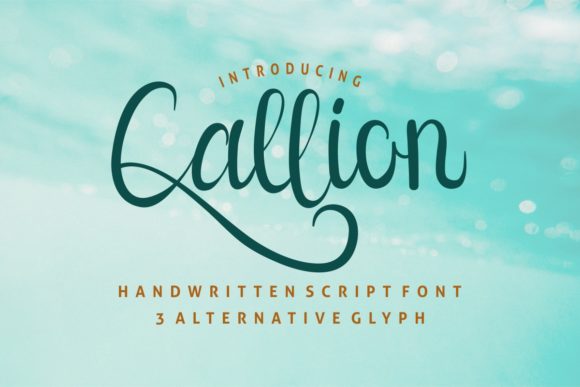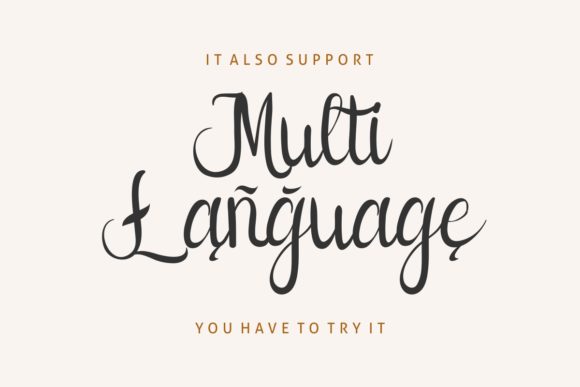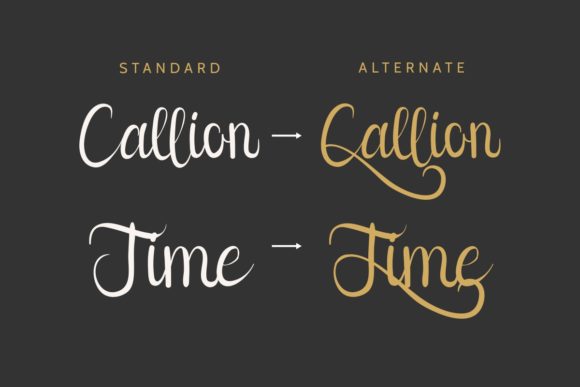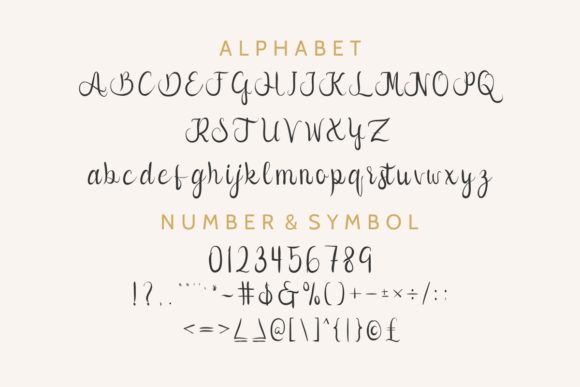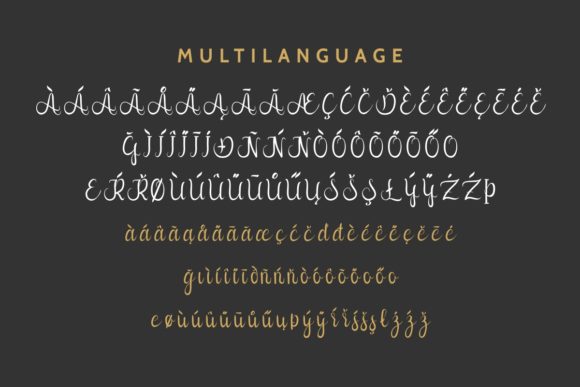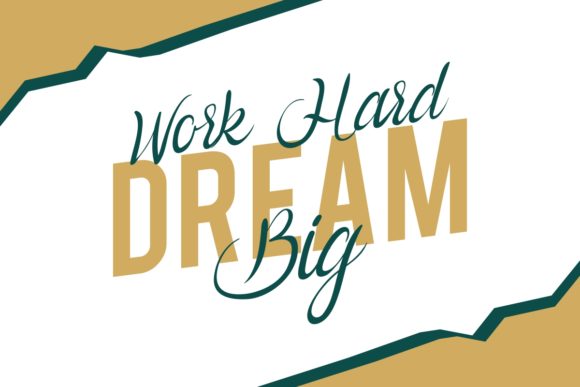
Introducing Callion Font: The Perfect Blend of Elegance and Personality
Callion is a classic handwritten font that combines elegance and personality into one beautiful script! This stunning font is perfect for designers and crafters looking to add a touch of sophistication and whimsy to their projects. In this article, we’ll dive into the world of Callion Font, exploring its features, uses, and benefits.
A Brief Overview of Callion Font
Callion Font is a beautifully crafted handwritten font that exudes elegance and charm. Its classic design makes it suitable for a wide range of projects, from wedding invitations and branding materials to digital products and craft projects. The font’s unique blend of cursive and script elements gives it a distinctive personality that’s sure to capture attention.
Key Features of Callion Font
- Elegant and Refined Design: Callion Font boasts a sophisticated design that’s perfect for high-end projects and branding materials.
- Handwritten with Love: The font’s handwritten nature gives it a personal touch that’s ideal for adding a human element to your designs.
- Versatile and Adaptable: Callion Font can be used for a wide range of projects, from digital products to print materials.
- Easy to Read: The font’s clear and legible design ensures that your message is conveyed with ease.
Uses of Callion Font
Callion Font is an incredibly versatile font that can be used for various projects, including:
- Wedding Invitations and Stationery: Add a touch of elegance and romance to your wedding invitations and stationery.
- Branding and Packaging: Use Callion Font to create stunning brand identities and packaging materials that stand out.
- Digital Products: Incorporate Callion Font into your digital products, such as e-books, blogs, and social media graphics.
- Craft Projects: Perfect for crafters, Callion Font can be used for journaling, card making, and other paper crafts.
Benefits of Using Callion Font
By incorporating Callion Font into your projects, you’ll enjoy several benefits, including:
- Unique and Memorable Designs: Callion Font’s distinctive personality ensures that your designs will be remembered.
- Ease of Use: The font’s clear and legible design makes it easy to read and understand.
- Time-Saving: With Callion Font, you can create stunning designs in no time, saving you valuable time and effort.
- Professional Results: Achieve professional-looking results with Callion Font’s elegant and refined design.
Tips for Using Callion Font
To get the most out of Callion Font, follow these expert tips:
- Pair with Other Fonts: Combine Callion Font with other fonts to create visually appealing and dynamic designs.
- Experiment with Colors: Try out different colors and color combinations to add depth and interest to your designs.
- Pay Attention to Spacing: Adjust the spacing between letters and words to create a balanced and harmonious design.
In conclusion, Callion Font is a beautiful and versatile handwritten font that combines elegance and personality into one stunning script. With its classic design, ease of use, and range of applications, Callion Font is perfect for designers and crafters looking to add a touch of sophistication and whimsy to their projects. Whether you’re working on a wedding invitation, branding material, or digital product, Callion Font is sure to impress.